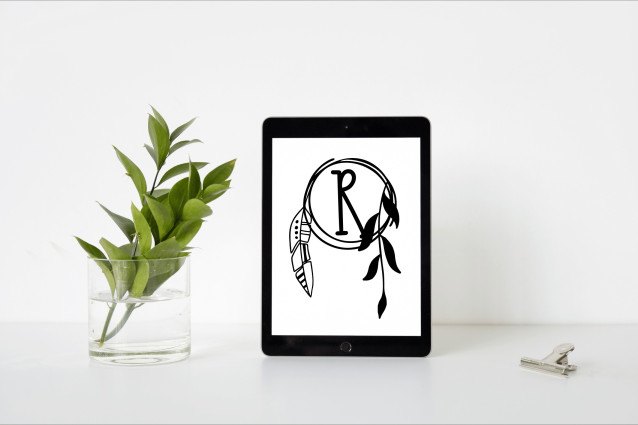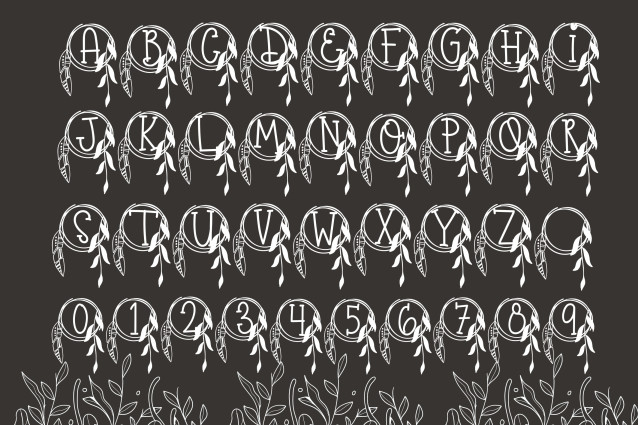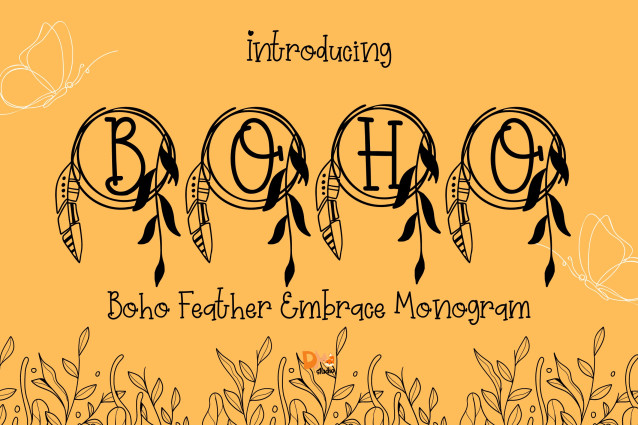
Boho Feather Charm Monogram Font
Boho Feather Charm Monogram Font is a dreamy serif monogram font featuring uppercase letters adorned with flowing, hand-drawn feather details. Designed to evoke freedom, lightness, and bohemian spirit, it’s perfect for crafting personalized logos, Cricut projects, wedding monograms, and nature-inspired packaging.